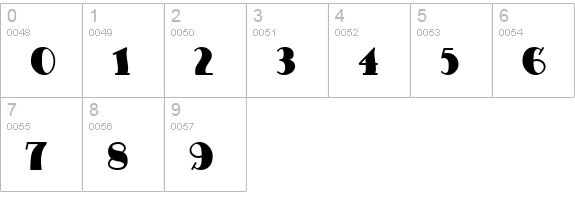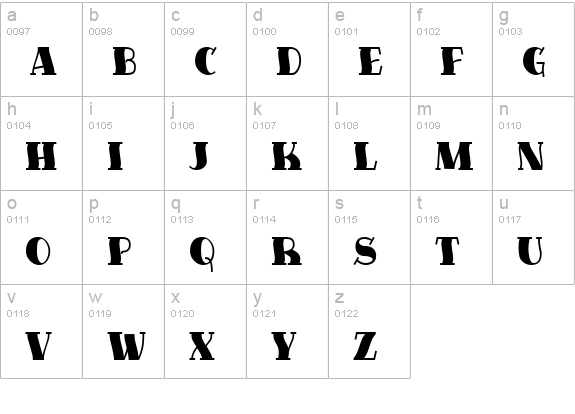
FiveOhOne Font Details
FiveOhOne font is a modern and stylish typeface that exudes sophistication and elegance. With its clean lines and sleek design, this font is perfect for a wide range of projects, from branding to packaging to editorial design. The versatility of FiveOhOne font makes it a go-to choice for designers looking to add a touch of class to their work. What sets FiveOhOne font apart is not just its aesthetic appeal, but also the fact that it is available for free download at FontsMarket.com. This means that you can access this high-quality font without having to spend a dime, making it an accessible option for designers of all levels. Whether you're working on a personal project or a client commission, FiveOhOne font is sure to elevate your design and make a lasting impression.